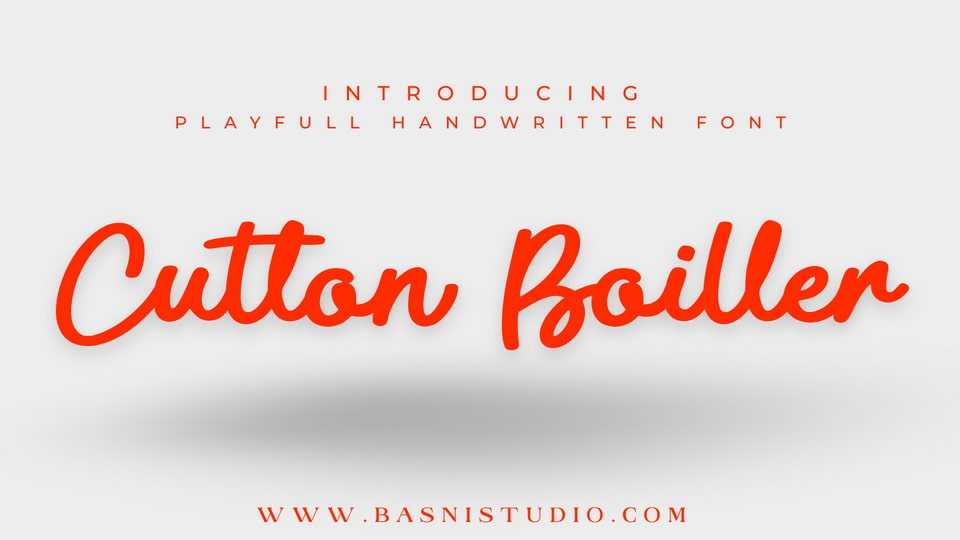
Download Cutton Boiller font, a casual handwritten typeface packed with personality and designed to add a dash of whimsy and a whole lot of charm to everything you create.